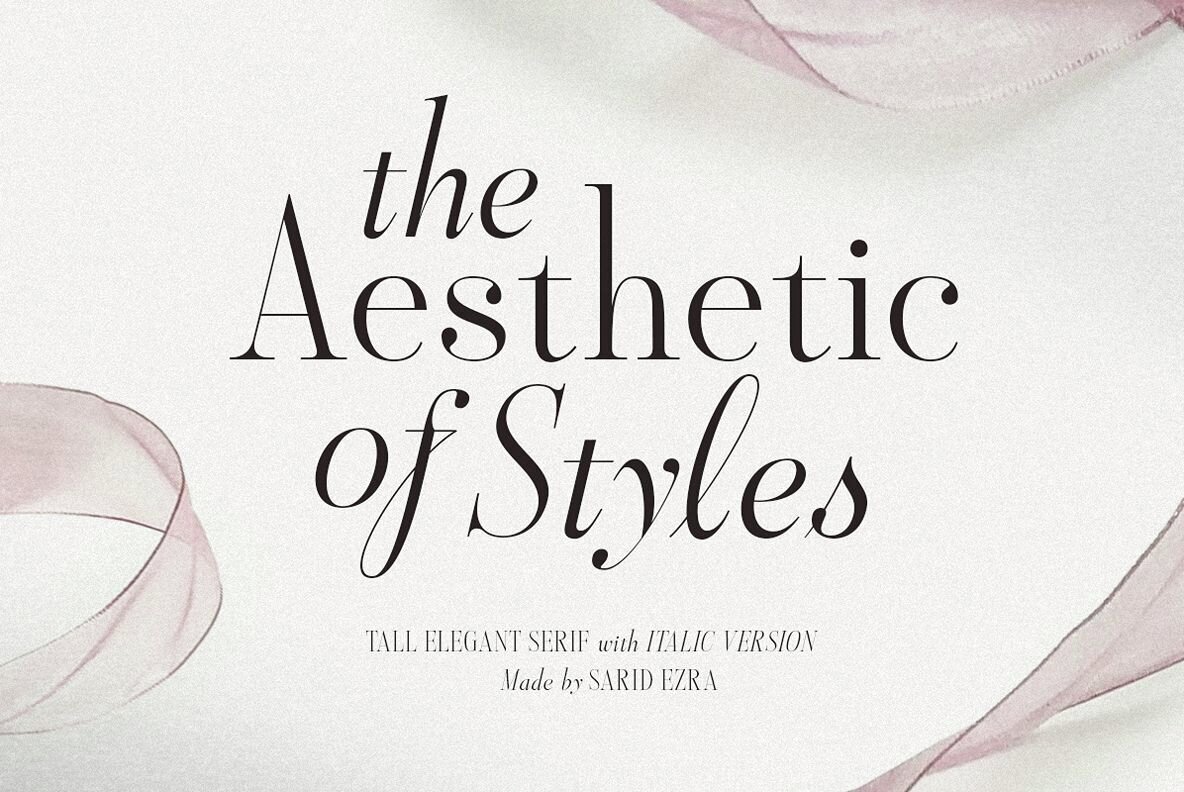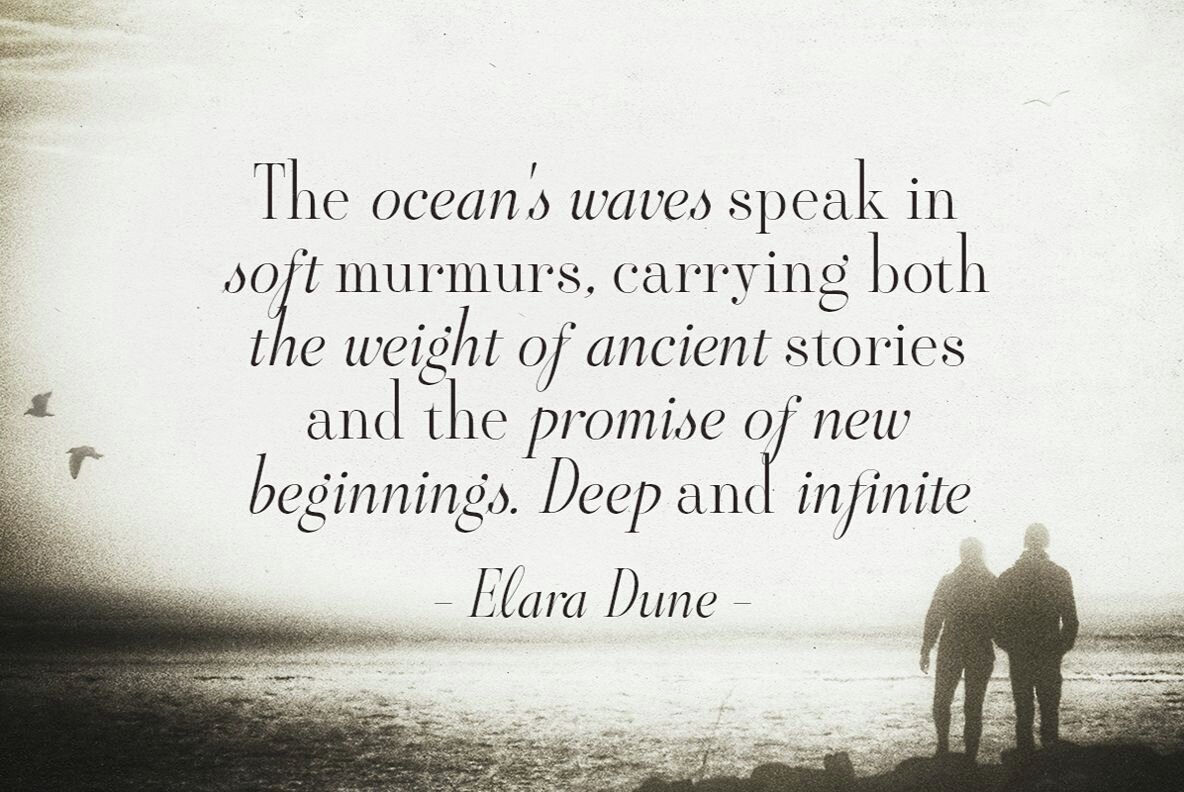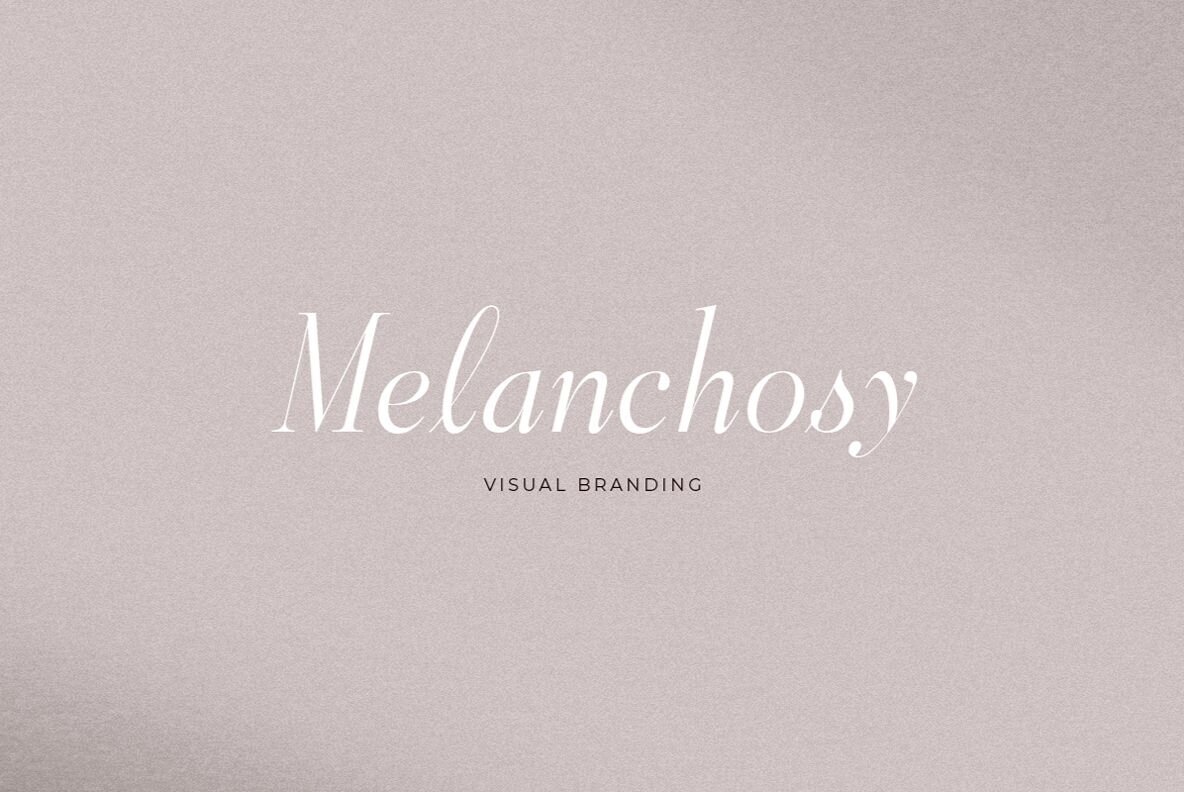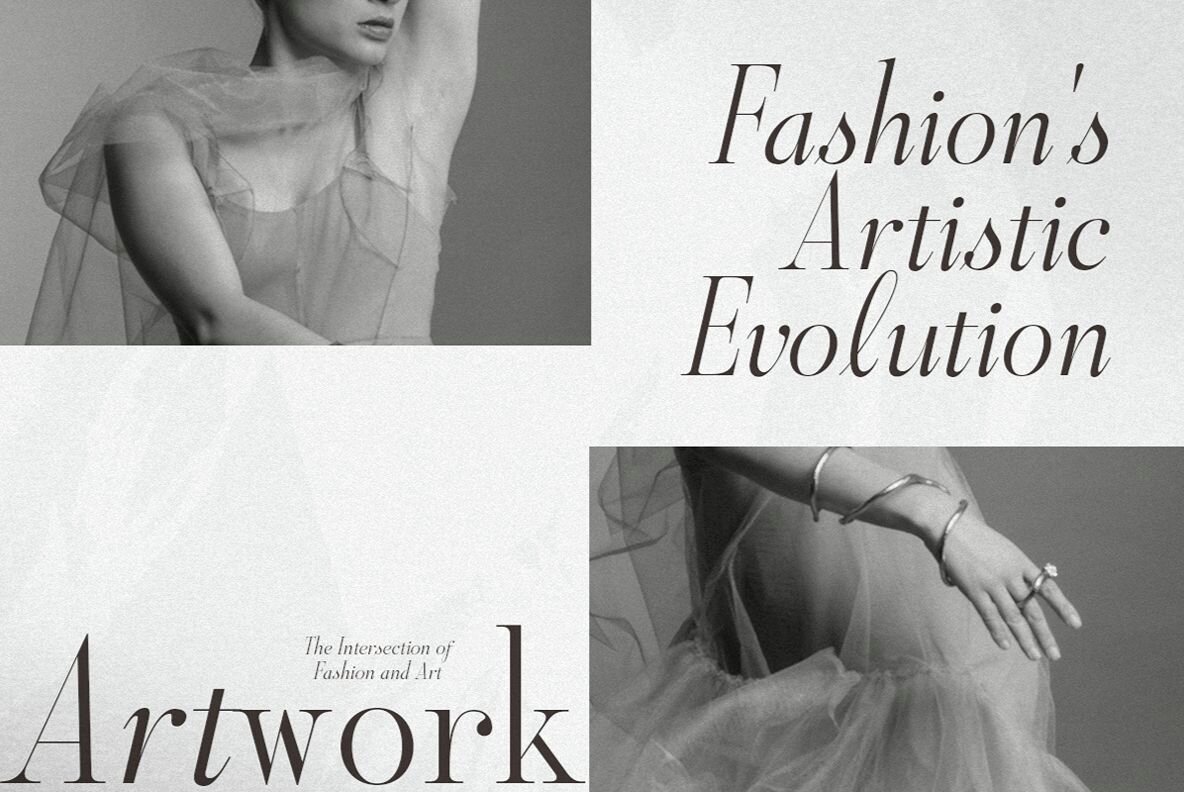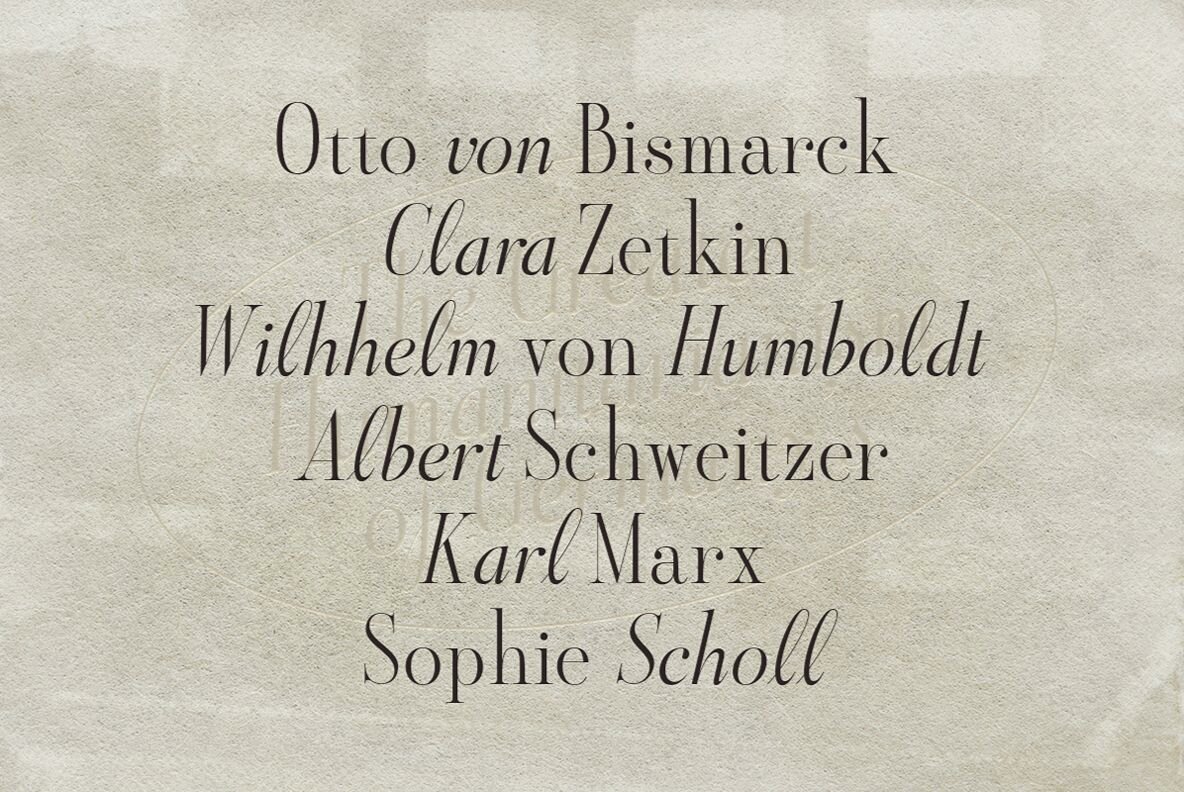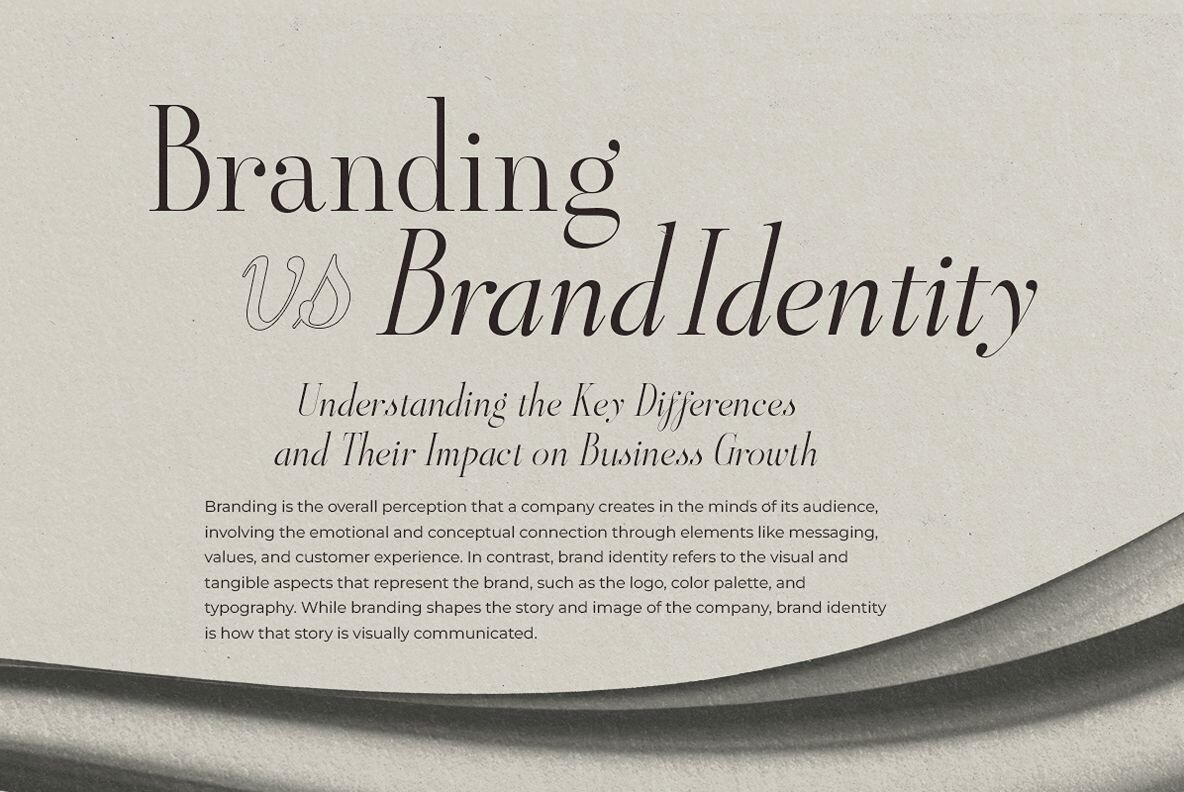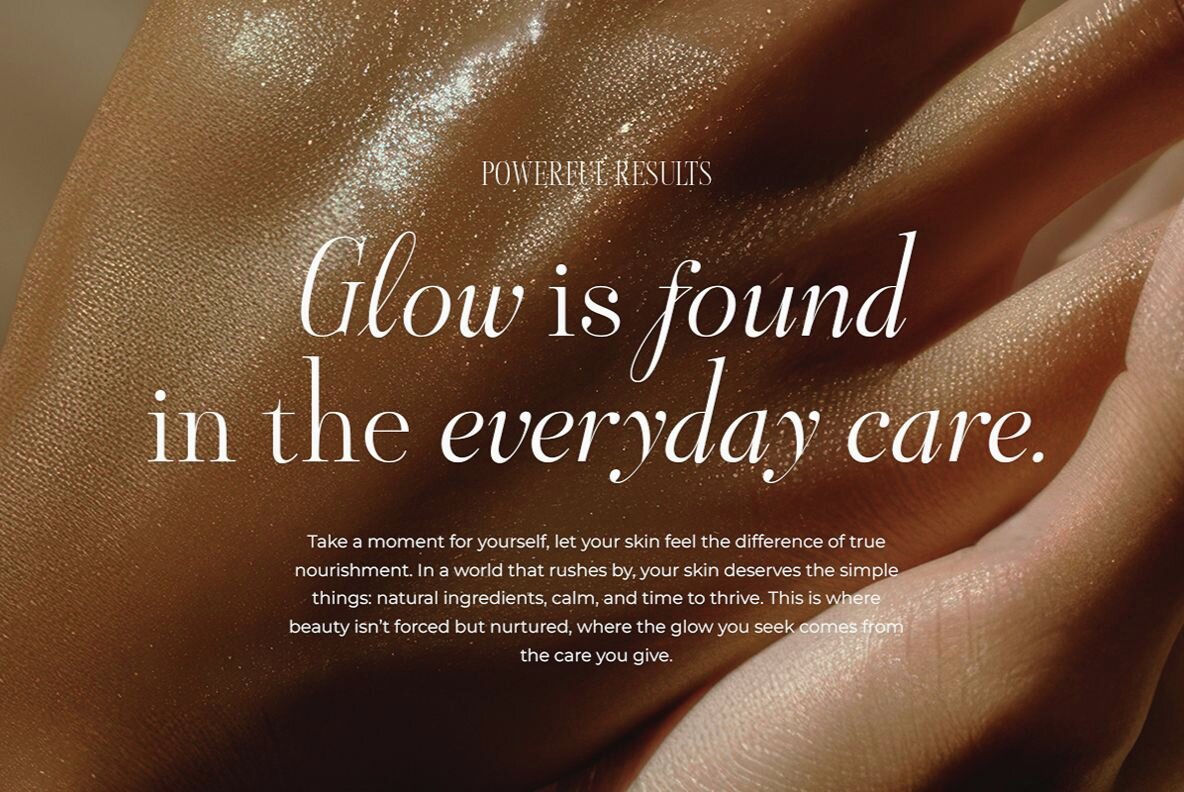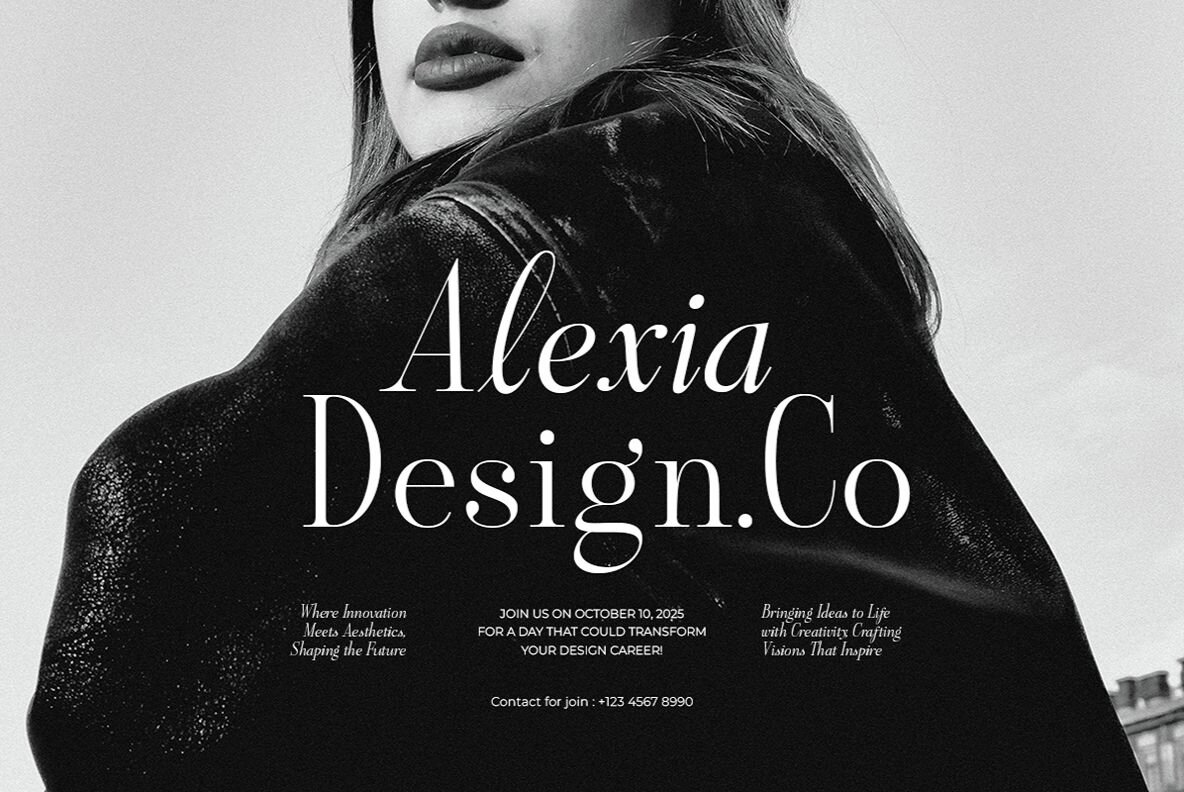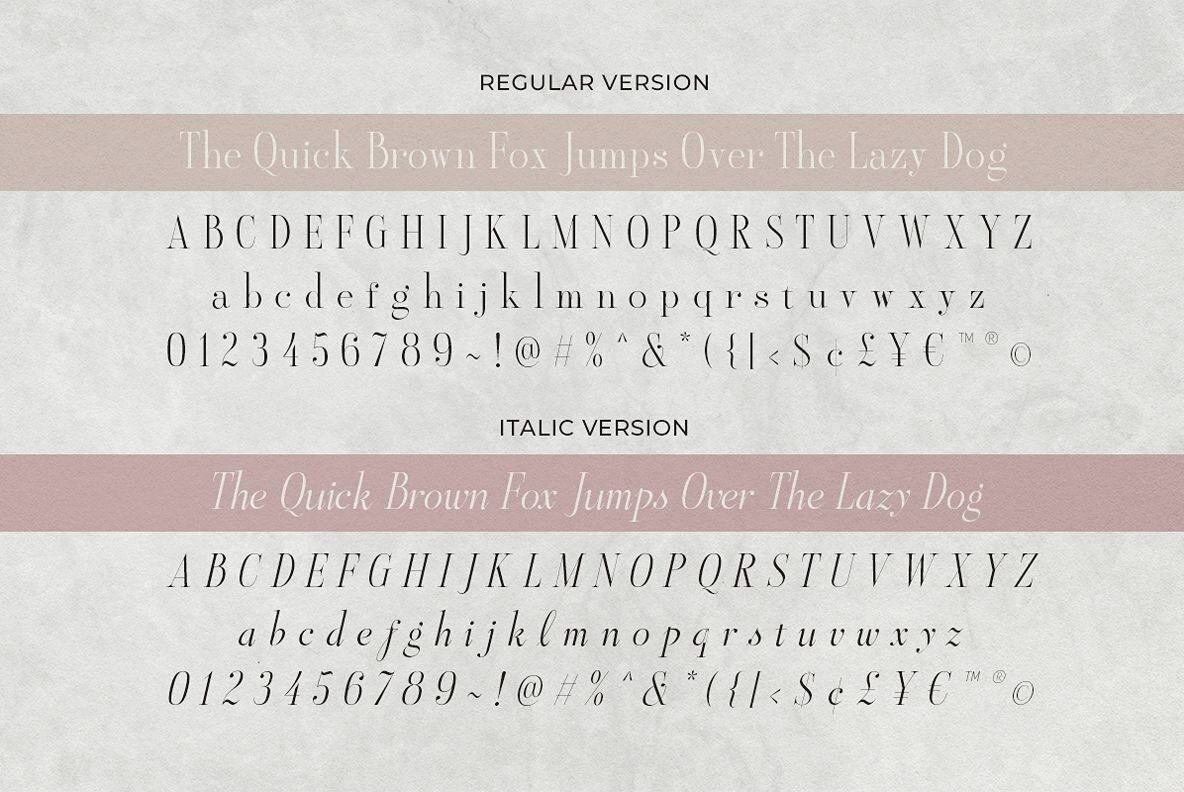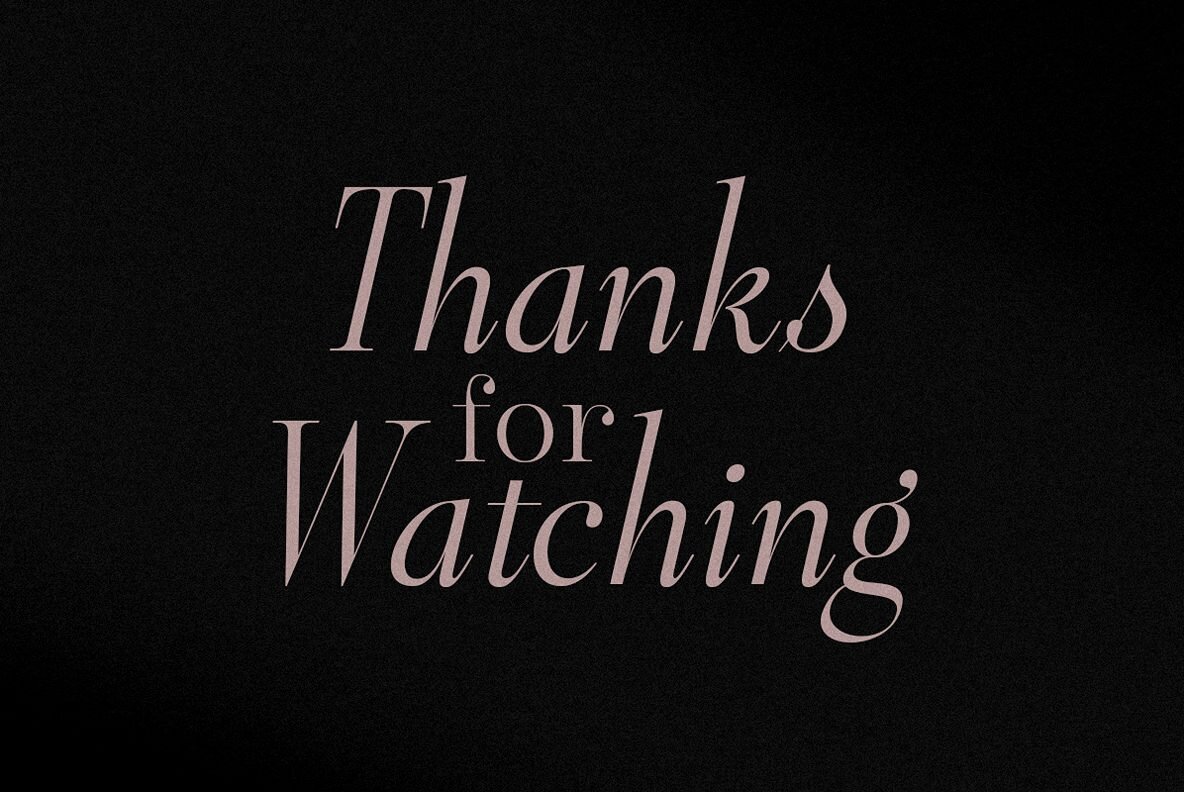
Aesthetic Styles Font
Aesthetic Styles Regular
Aesthetic Styles Italic
Aesthetic Styles is a sophisticated tall serif font that exudes elegance and minimalist charm. Its stylish italic version enhances its versatility, making it perfect for diverse applications, from branding to quotes and wedding invitations. This font effortlessly combines with script and sans-serif fonts, offering endless creative possibilities.Aesthetic Styles: Timeless Elegance
Versatile and Multi-Lingual Support